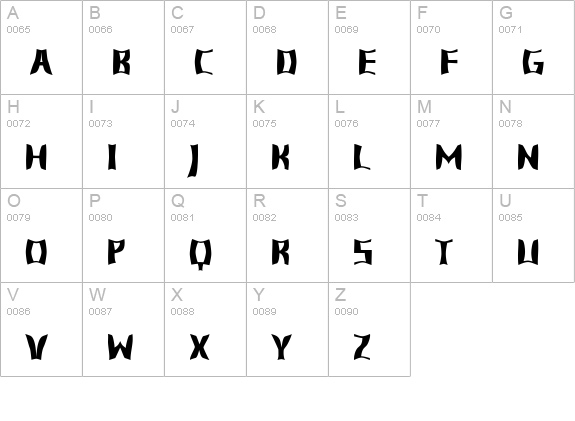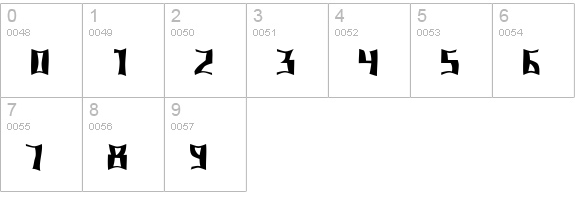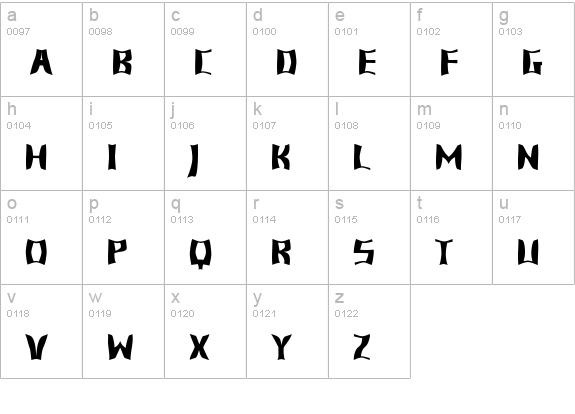
ConcavWarp Font Details
ConcavWarp font is a unique and eye-catching typeface that combines modern aesthetics with a touch of creativity. Its captivating design features concave curves that give it a dynamic and futuristic appearance. This font is perfect for projects that require a bold and stylish look, such as branding, posters, and packaging. What sets ConcavWarp font apart is its versatility - it can be used for both headlines and body text, making it a practical choice for various design applications. The sleek and contemporary style of this font will surely make your designs stand out. The best part? ConcavWarp font is available for free download at FontsMarket.com. So go ahead and elevate your projects with this striking typeface today!